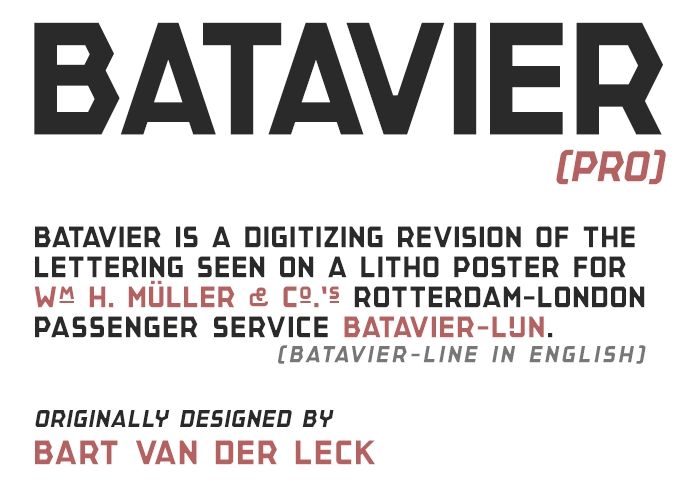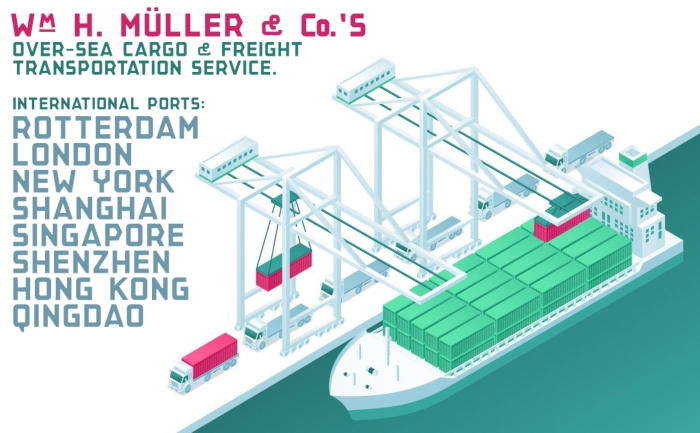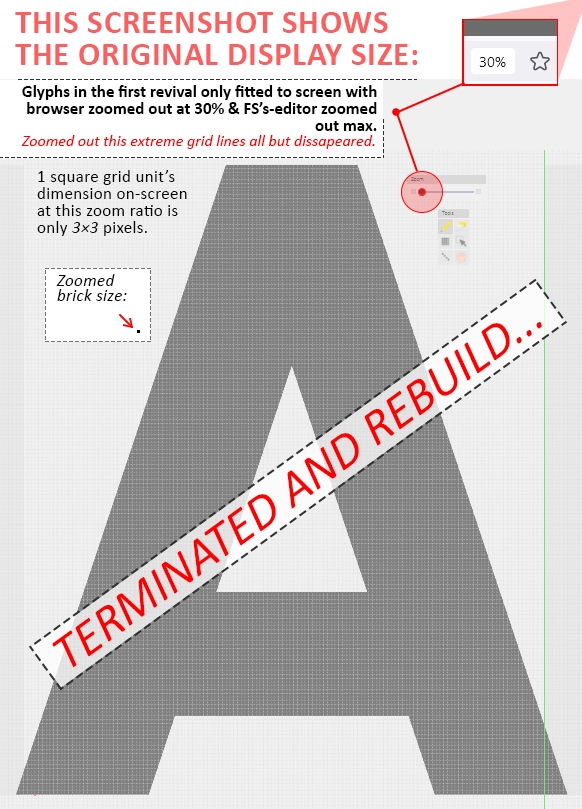
• BATAVIER (Pro) — Geometric display sans
Revision / revival of the geometric lettering seen on a 1916 Dutch litho poster for the Wm H. Müller & Co.'s Rotterdam-London passenger service called Batavier-Line (Batavier-Lijn in Dutch) which was originally designed by Bart van der Leck (1876 - 1958).
The Batavier Line existed from 1830-1960, and was the oldest steam shipping line in The Netherlands.
A couple of small changes were implemented compared to v/d Leck's original lettering. Most significant is the upscaled Ampersand, but numerous other small cosmetic or optimizing modifications were made as well.
I completed the full alphabet plus numerals and included additional symbols and punctuation marks to make it a fully functional typeface. The lettering is all caps (majescule) only. Some lowercase letter locations harbour a glyph alternate uppercase form as could be seen in the original litho poster source. Another bunch of alternate uppercase forms and underlined “superior” small capital letters were located in the “Halfwidth And Fullwidth Forms” Unicode block. In addition to that it has accented Latin letters for multilingual support. Also two resized alternate forms for the Ampersand and two stylish ligatures have been included.
This is actually the second revision I did for the litho lettering by v/d Leck. The first attempt was made using a (faux-) Bézier approach, resulting in a huge grid canvas (168 grid units / bricks tall monstrosity). This made it a lot of hard work to build and for some letters impossible to properly implement kerning since FS values only allows  min. -10 / max. 10  of grid units for kerning.
As part of the endeavor to refurbish some of my older FontStructions STF BATAVIER was one of those that was in serious need of some overhauling as well. The problem it presented was the font's cap-height. It was actually so tall and impractical to work and / or modify, that the first revival attempt never really fully materialized beyond a basic character set.
A full glyph only fitted on screen with the FS-editor zoomed-out max. and my browser zoomed-out at 30%. At this scale not only the canvas grid lines in FS's editor all but dissapeared, but it also resulted in a down-sized brick (or 1 square grid unit) with on-screen rendering at only 3×3 pixels, as oposed to 64×64 pixels with the FS-editor's default zoom settings.
So imagine selecting a tiny 3×3 px speck when working the glyph canvas at brick level to modify glyphs... pretty much impossible. Now, the other situation wasn't a whole lot better. This had the browser's zoom restored back to 100%, making the glyph canvas at brick level “workable” again. But in respect to the cap-height this only renders a very small section of the glyph on-screen. Requiring a huge deal of additional canvas navigation in FS's canvas editor, better known as “Pan the view (H)”, which is done with the hand tool.
And well, as many of you will know, this is an absolute bummer When navigating (or panning) a glyph bottom to top requires 3 full canvas swipes.
So yeah, the only way for an extended version ever to materialize was to be rebuild it from the ground up at a much small scale, using very different measurement ratios compatible with FontStruct's kerning.
This second revision attempt successfully reduced the font's cap-height down to a comfortable 5 bricks (or grid units)  tall and Em-square of 7 bricks total. Some optical compensations were implemented to certain elements such as stroke weight corrections and careful minute differences in vertical positioning of letter mid-section elements.
@elmoyenique: Thanks mate. And yeah, doing curves at 168 brick canvas makes beautiful rounds. But it was just over the top doing that.. terrible to work with sadly! The image above demonstrates a 1:1 scale screenshot showing the true size (so there was no additional image resizing implemented in photoshop).